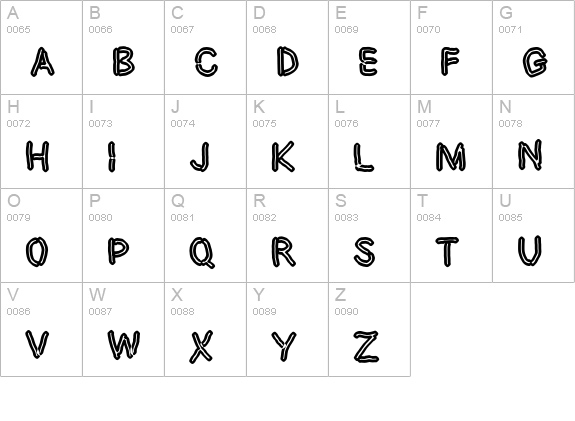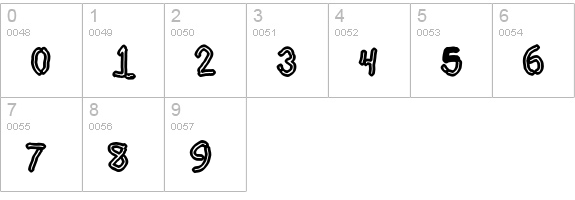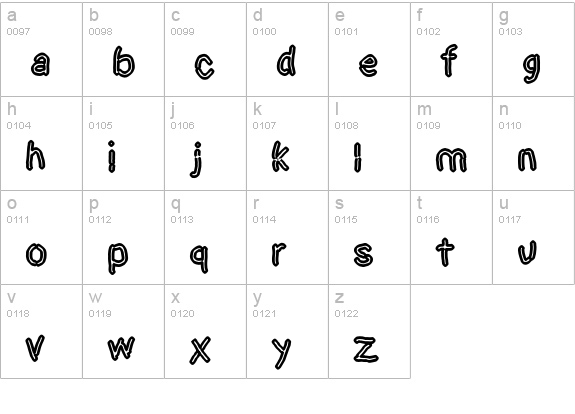
Dictator Chalk Font Details
Dictator Chalk font is a bold and eye-catching typeface that exudes a sense of authority and power. With its strong and confident strokes, it commands attention and makes a bold statement. This font is perfect for those looking to add a touch of strength and dominance to their designs. What sets Dictator Chalk font apart is not just its impactful design, but also its availability for free. That's right, this incredible font is freely available to download at FontsMarket.com. Whether you're a creative professional, a student, or simply someone with a passion for typography, you can now access this font without any cost. Dictator Chalk font is versatile and can be used in a variety of design projects. From posters and banners to logos and branding materials, this font will make your message stand out and leave a lasting impression. Its distinctive chalk-like appearance adds a touch of uniqueness and creativity to any design. With its clean and legible letterforms, Dictator Chalk font ensures that your message is conveyed clearly and effectively. The boldness of this font is balanced by its approachability, making it suitable for a wide range of applications. Whether you're designing for a corporate setting or a more casual and playful environment, this font has got you covered. So, why wait? Download Dictator Chalk font today from FontsMarket.com and unleash the power of this remarkable typeface. With its free availability and captivating design, you can take your designs to new heights and make a lasting impact. Embrace the authority and dominance that Dictator Chalk font brings to your creations and let your message be heard loud and clear.